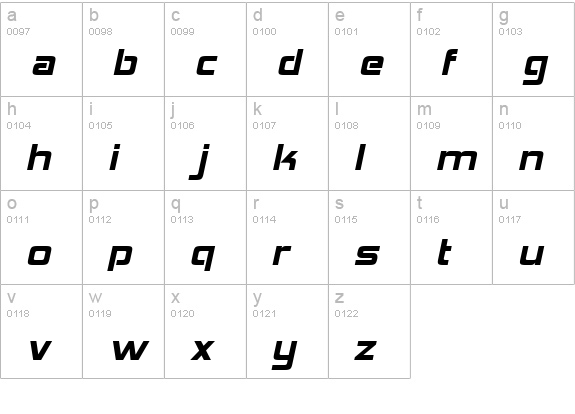
Hemi Head 426 Font Details
Hemi Head 426 font is a bold and powerful typeface that exudes strength and confidence. With its distinctive blocky letterforms and sharp angles, this font is perfect for making a statement in headlines, posters, and branding materials. The Hemi Head 426 font is inspired by classic muscle cars and embodies a sense of speed and performance. The best part? Hemi Head 426 font is available for free download at FontsMarket.com. Whether you're a designer looking to add a touch of boldness to your projects or a car enthusiast wanting to capture the spirit of vintage muscle cars, this font is a must-have in your collection. Download it now and unleash the power of Hemi Head 426 font in your designs.